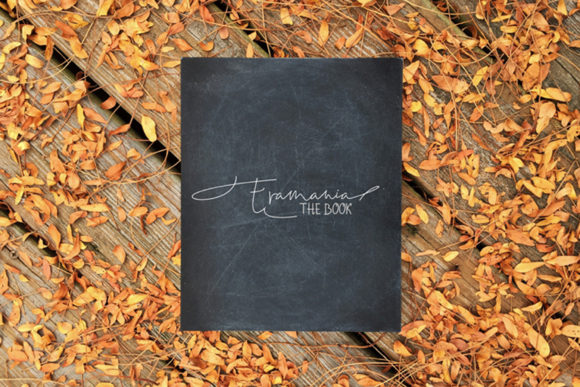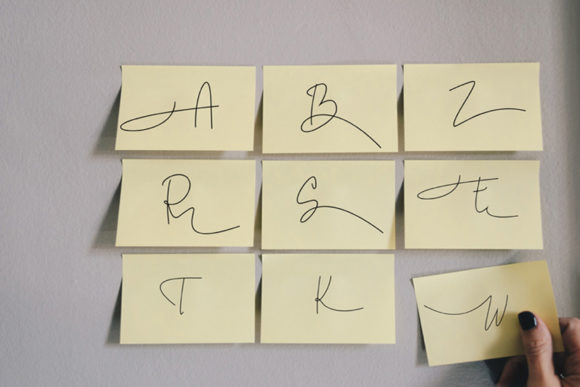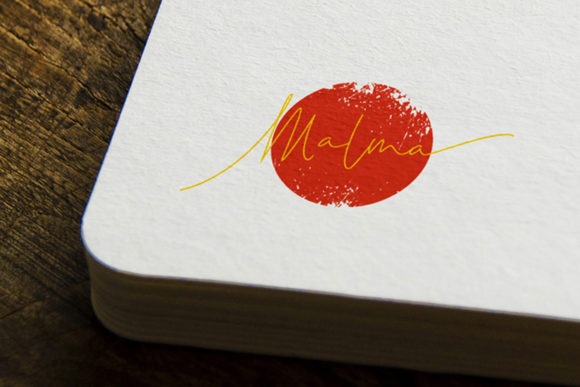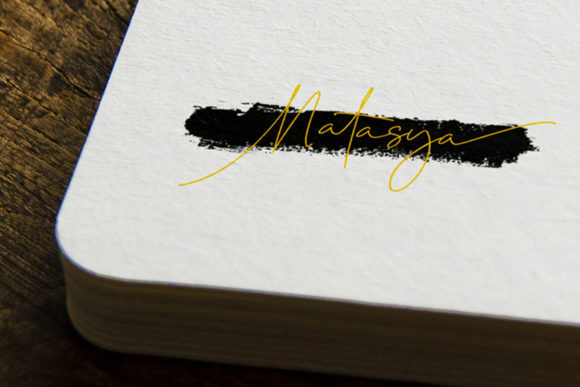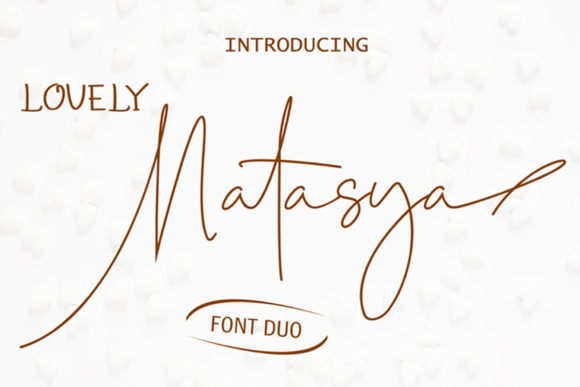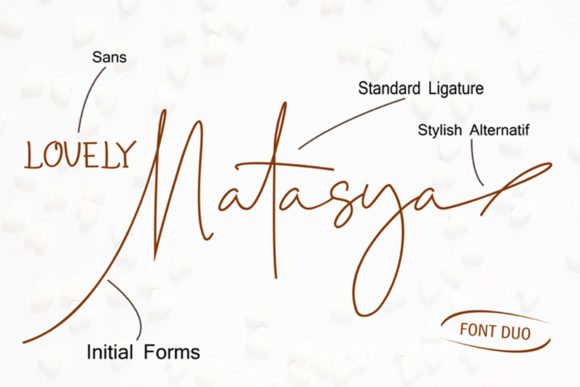
Lovely Natasya Font
About Lovely Natasya Font
Lovely Natasya is a lovely script font duo that is delicate and charming. Get inspired by its understated design and class.